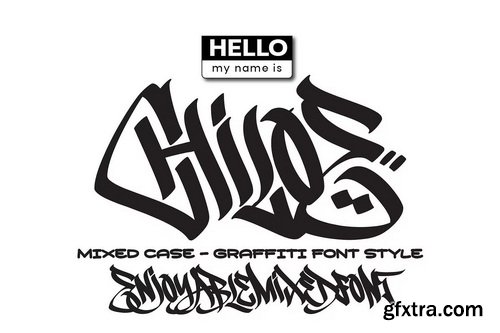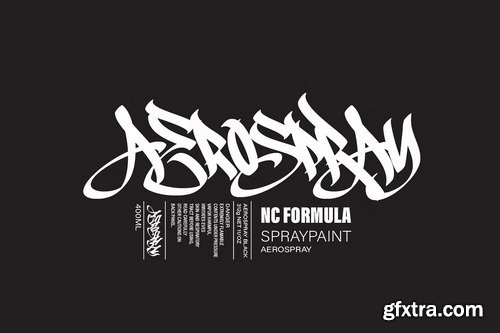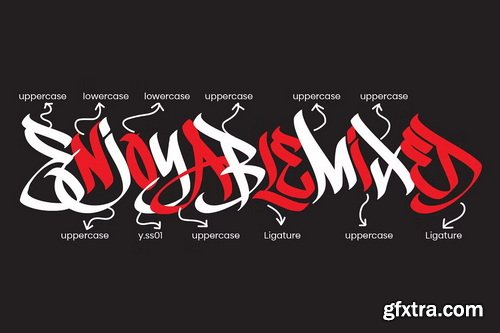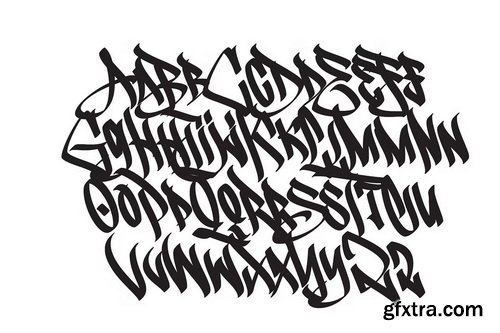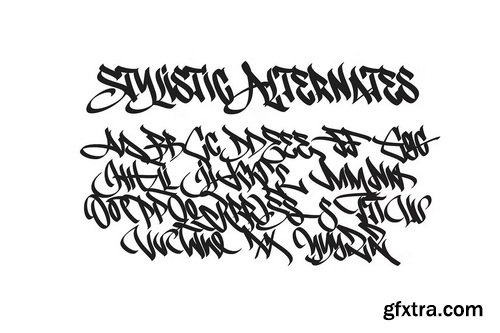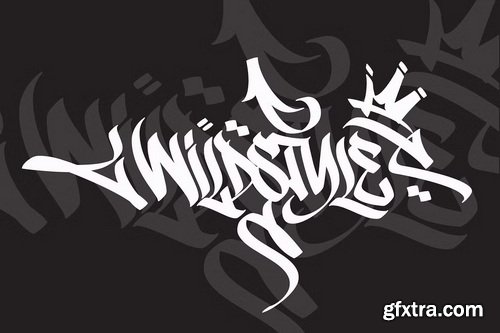
CreativeMarket - Chiloe Graffiti Typeface
- Say hello to Chiloe, a bold graffiti-style font straight outta the streets. Inspired by flat marker tags and raw handstyle energy, Chiloe’s all about that mixed-case flow, blend uppercase and lowercase however you vibe with it, no rules, just style. We hooked it up with dope alternates and some wild ligatures, so your letters can hit different every time. Plus, we threw in a bunch of fresh doodles to drop around your text. Perfect for adding flavor or balancing out those heavy spots in your design. This font’s made for creators who live in the culture, urban fashion, hip-hop scenes, streetwear drops, branding, posters, you name it. Chiloe brings that raw, young, street-smart energy that pops off the page. Keep it loud. Keep it real. That’s Chiloe.